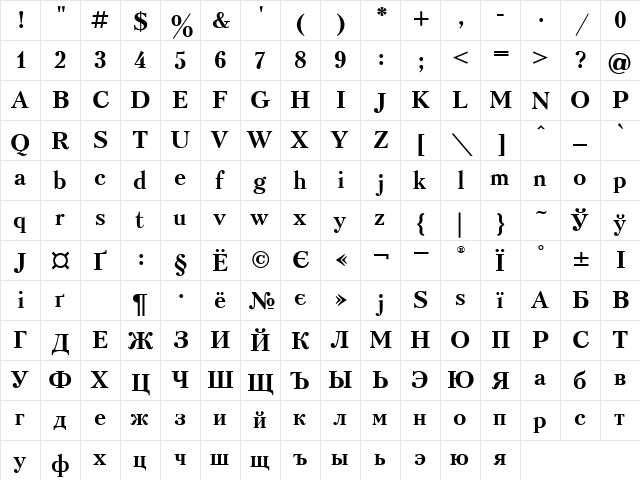
UkrainianKudriashov Bold
Design Context for UkrainianKudriashov Typeface
UkrainianKudriashov takes a measured approach to typography — its balanced proportions and neutral character make it a reliable workhorse for both digital and print work. The heavy weight commands attention and anchors typographic hierarchies.